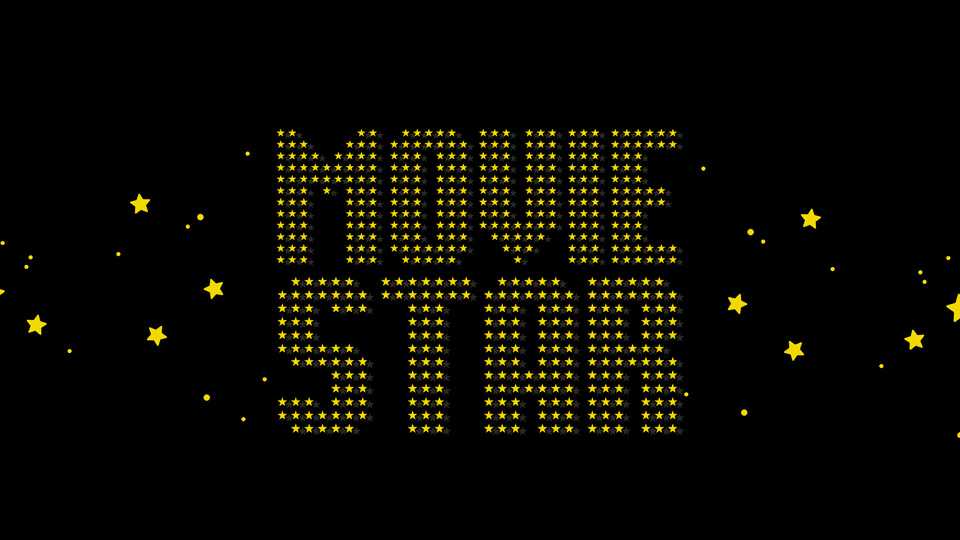
Download Movie Star font, a decorative typeface with color stars pattern. Movie Star is great for posters, covers, packaging, invitations, T-shirts and more.